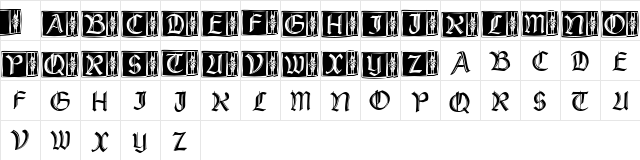
Rustick_Capitals Regular
Design Context for Rustick_Capitals
Rustick_Capitals is a composed and adaptable typeface that performs quietly and consistently across a wide range of design contexts.